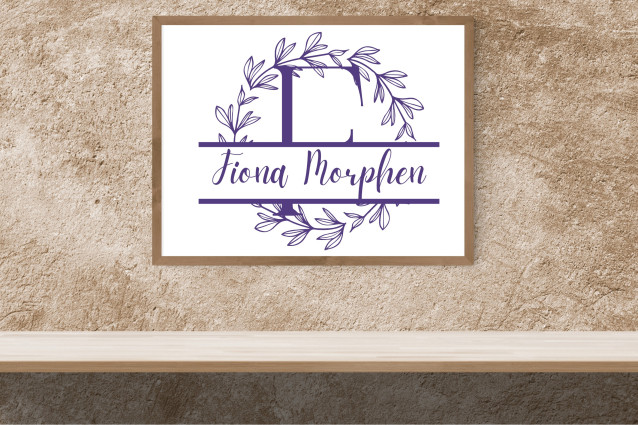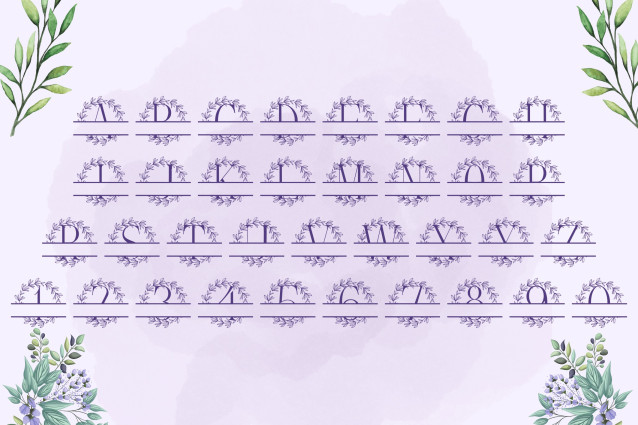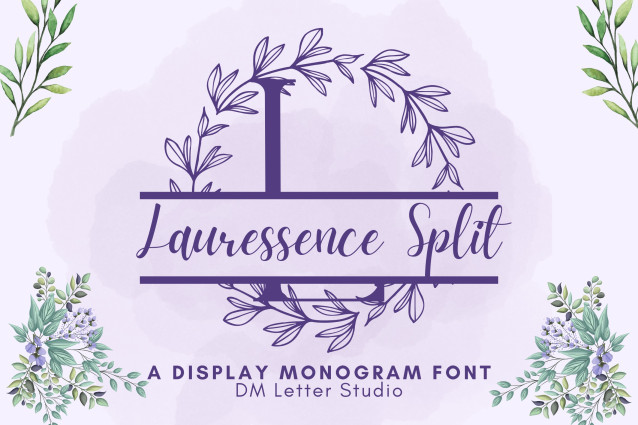
Lauressence Split Monogram Font
Lauressence Split Monogram Font is a graceful script monogram font with a centered split layout and romantic floral detailing. Each uppercase letter is styled with elegant flourishes and a blank center space, perfect for customizing with names, dates, or short phrases. Designed for weddings, branding, personalized gifts, and stationery, this font brings timeless charm and botanical elegance to every project.